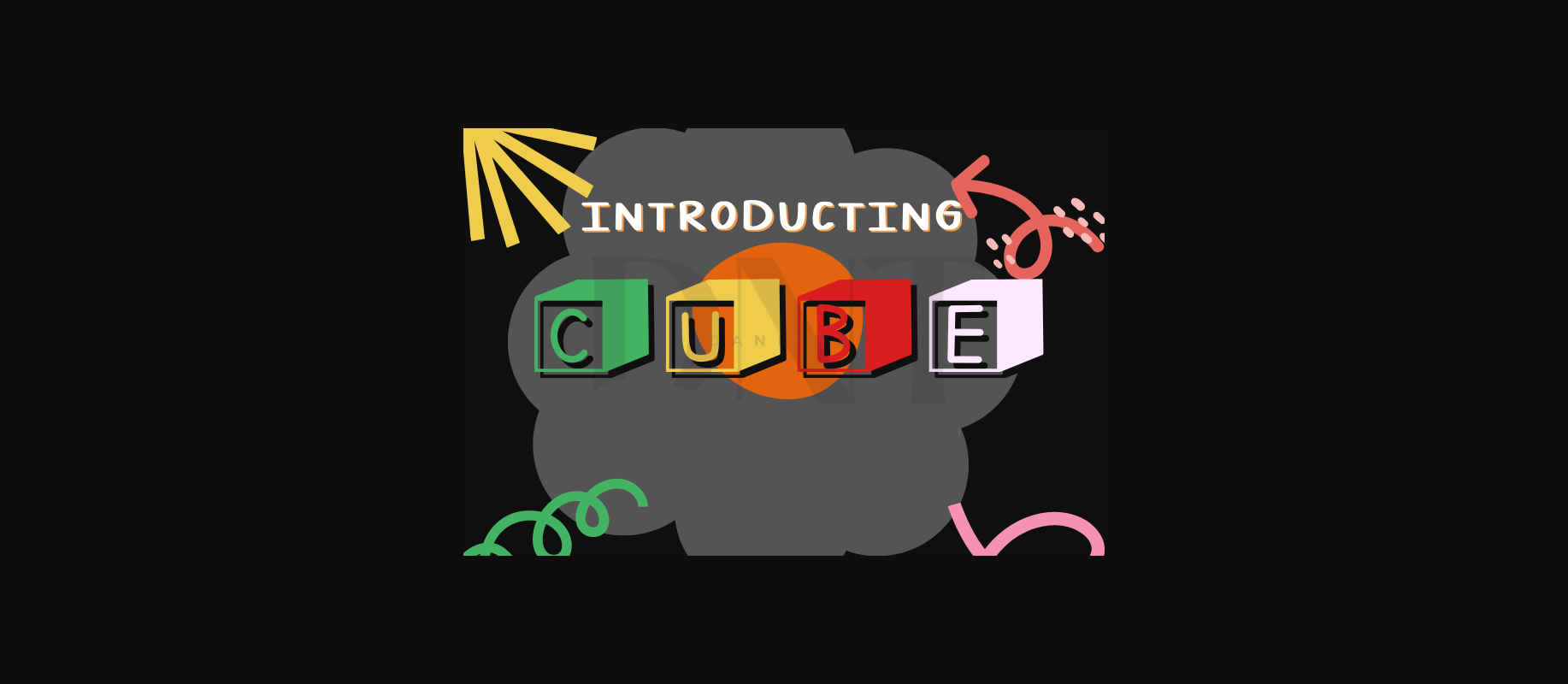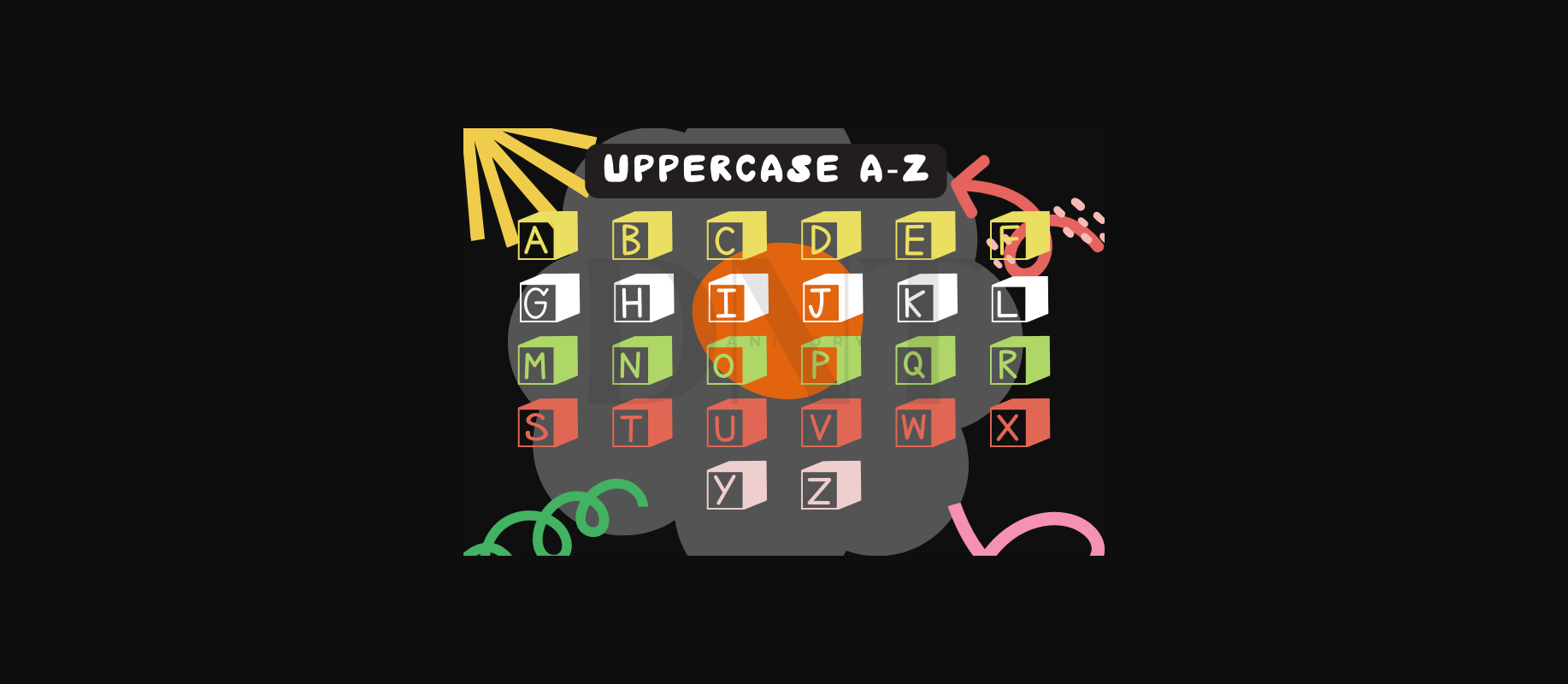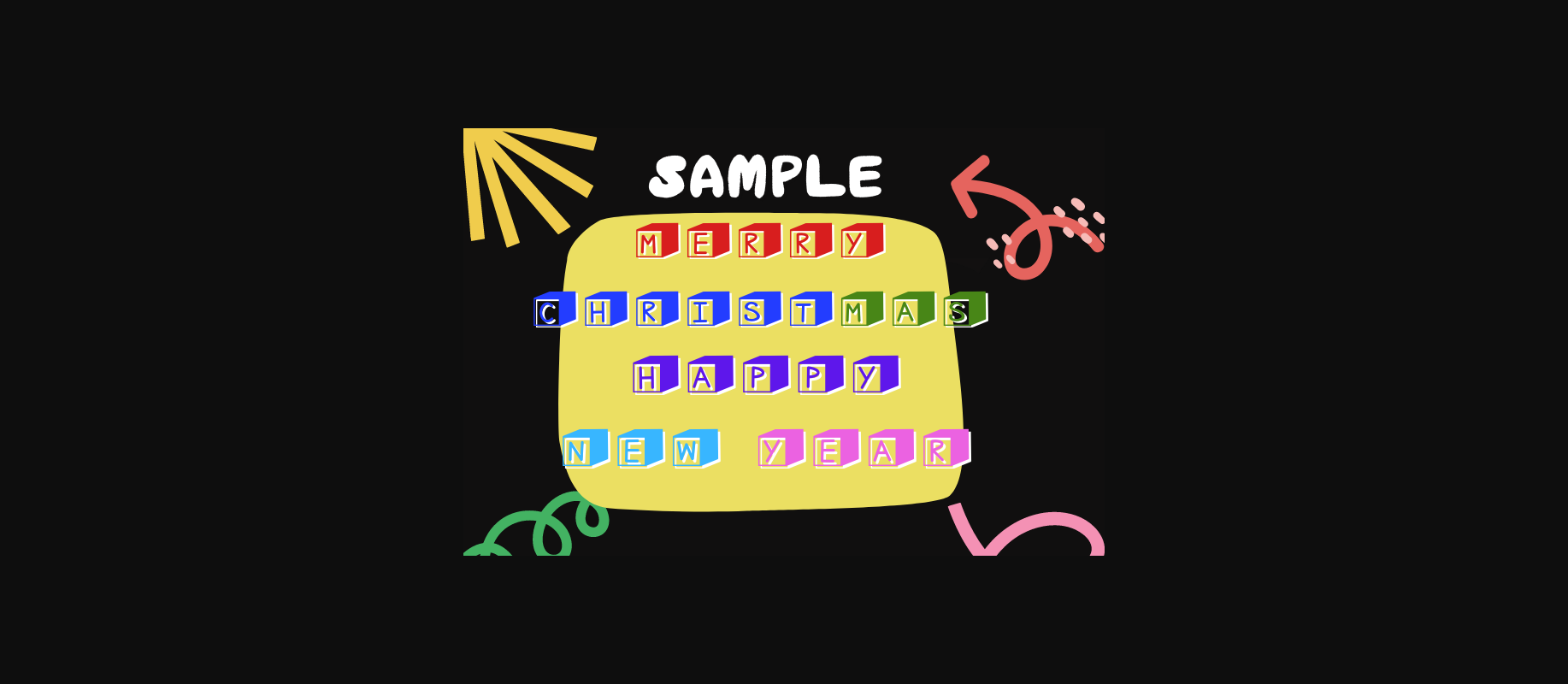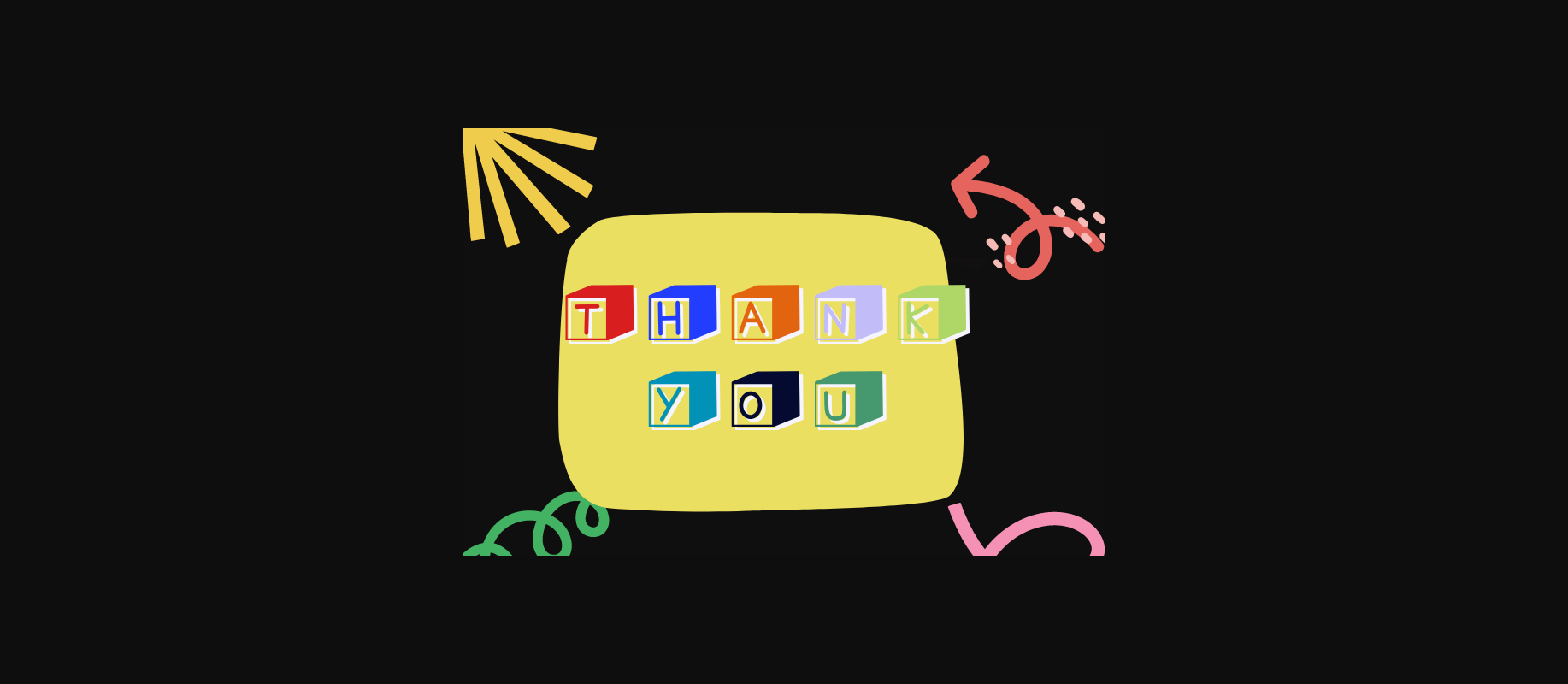
HomeDecorative FontsCube Font Decorative Fonts Cube Font FacebookXPinterestWhatsApp 1 of 6 ... Cube Font Poster 2... Cube Font Poster 3... Cube Font Poster 4... Cube Font Poster 5... Cube Font Poster 6... About Cube Font Cube is a fun, kid-friendly decorative font. It can be used to decorate textbooks, worksheets, game activities, and digital teaching materials. DOWNLOAD NOW People also explored Our Beloved Lf Font Industry Font Love Jar Monogram Font Yesillow Font Cute Slim Font Meow Zilla Font Billy Love Font Beauty Angelin Font Be Breast Beware Font 273 0 TagsCubeCube Font Previous articleJoyful Barbershop FontNext articleMini Hearts Font LEAVE A REPLY Cancel reply Comment: Please enter your comment! Name:* Please enter your name here Email:* You have entered an incorrect email address! Please enter your email address here Website: Save my name, email, and website in this browser for the next time I comment. Personal Use Free Baby Mollusca Personal Use Free Read more about this font Peachy Rose Personal Use Free Read more about this font Unsteady Overseer Personal Use Free Read more about this font Clarisa Script Personal Use Free Read more about this font BLOG Top 10 Handwritten Fonts That Elevate Your Designs Top 10 Handwritten Fonts That Will Elevate Your Designs Handwritten fonts bring a warm, personal touch to every creative project. Whether you're designing logos, invitations,... Using Fonts in Digital Marketing: Tips to Strengthen Your Brand Identity Free vs Paid Fonts: Why Investing in Premium Fonts Is Worth It How to Install and Use Fonts on Windows, macOS, and Web Projects